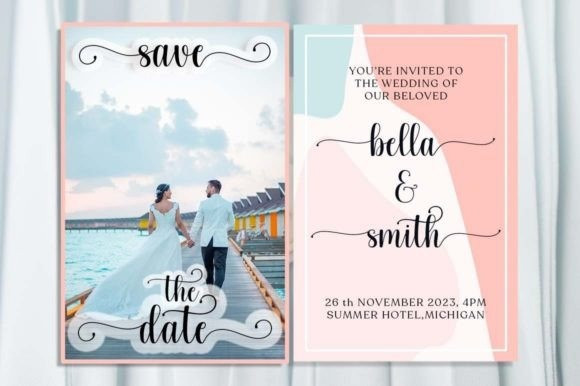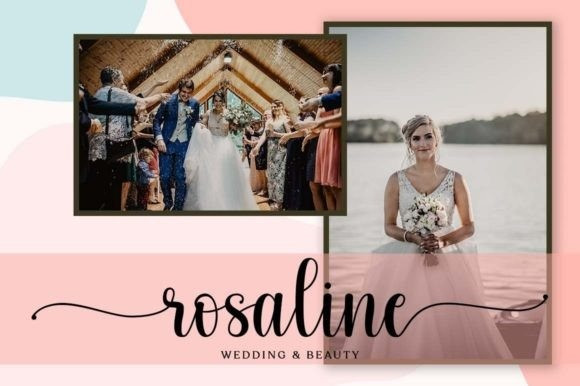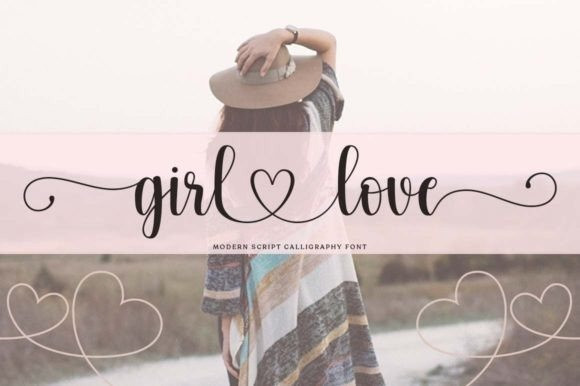
Girl Love Font
Girl Love Font is a sweet calligraphy script that maintains its elegance throughout all the characters. Girl Love is the perfect typeface for all kinds of your projects such as advertising, branding, graphic design, quotes, wedding designs, logos for online or offline businesses, photography, and more. Make your business more beautiful!